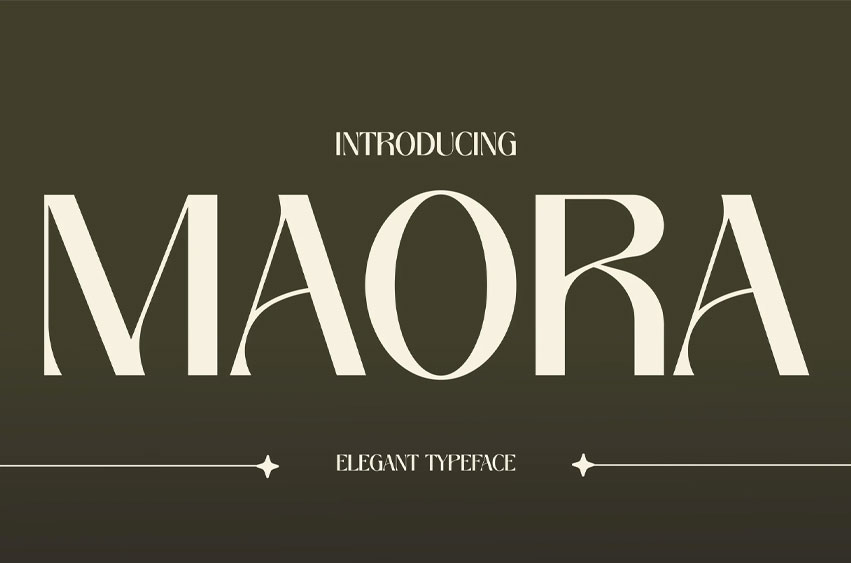
Maora Font
Maora Font is an elegant editorial display typeface designed for beauty branding, cosmetic packaging, and fashion-focused visual identities. With its refined high-contrast strokes, graceful curves, and sophisticated serif structure, Maora creates a polished presence that feels both contemporary and timeless.
Inspired by modern beauty campaigns and editorial layouts, Maora balances expressive letterforms with excellent visual clarity. Its delicate proportions and distinctive character shapes make every headline, logo, and product label feel thoughtfully crafted while maintaining strong brand recognition. Whether you’re designing Instagram campaigns, skincare packaging, fashion lookbooks, wellness products, or boutique branding, Maora helps communicate confidence, refinement, and aesthetic consistency across every touchpoint.
In a market where visual identity influences purchasing decisions within seconds, Maora delivers the sophisticated character needed to stand out. Its elegant structure naturally enhances beauty brands, lifestyle products, editorial covers, social media promotions, and packaging systems.
Key Features : Refined Editorial Presence
• High-contrast letterforms for striking headlines
• Graceful serif details that add sophistication
• Designed for modern beauty and fashion aesthetics
Built for Branding
• Ideal for logos and visual identities
• Creates memorable packaging presentations
• Strengthens brand consistency across platforms
Versatile Creative Applications
• Beauty and skincare packaging
• Fashion magazines and editorials
• Instagram content and social campaigns
• Product labels and boutique branding
• Website headers and promotional materials
Balanced Visual Structure
• Elegant proportions for improved readability
• Distinctive character shapes for stronger recognition
• Clean composition that supports premium positioning
Professional Design Workflow
• Easy integration into print and digital projects
• Suitable for both large display sizes and branding applications
• Helps create cohesive visual storytelling